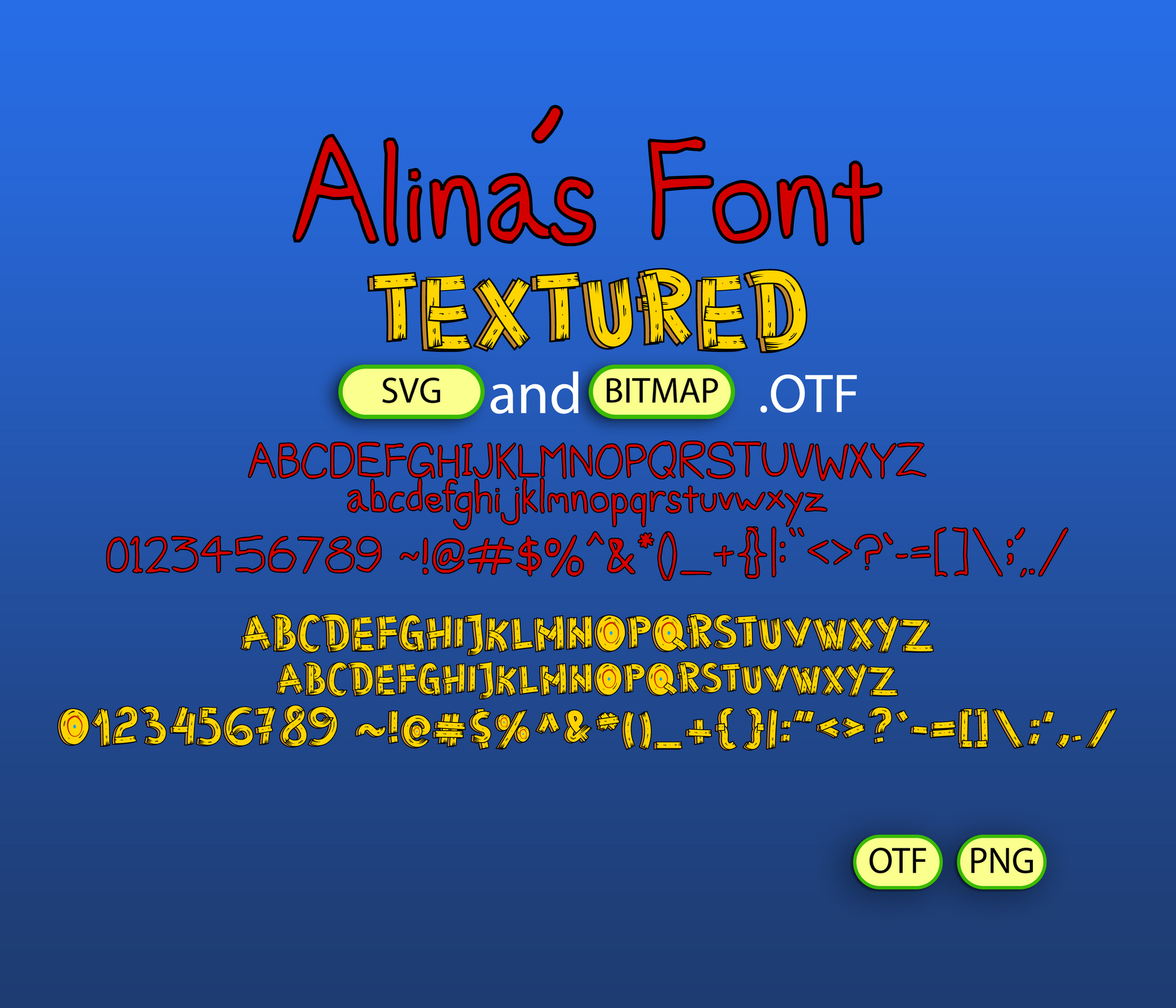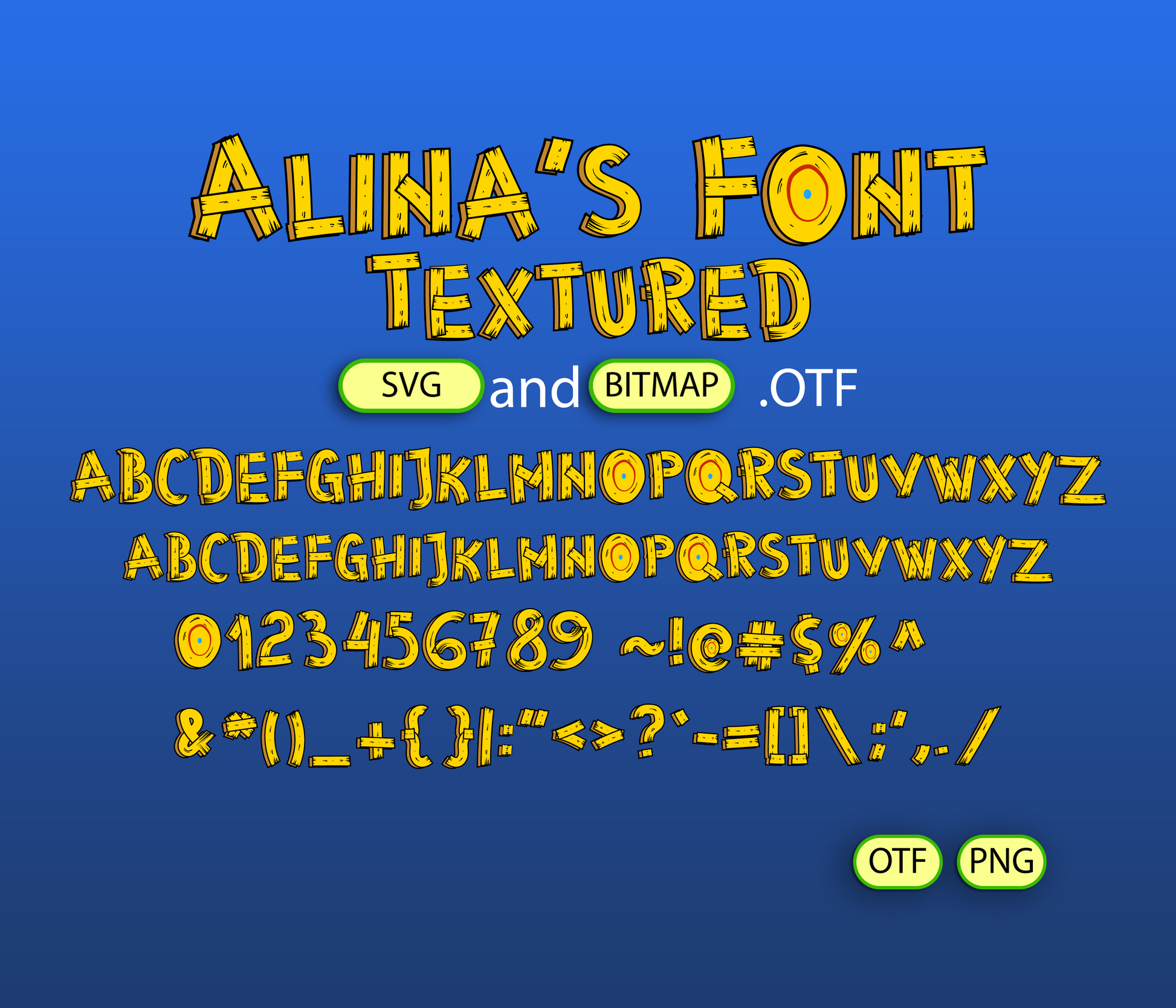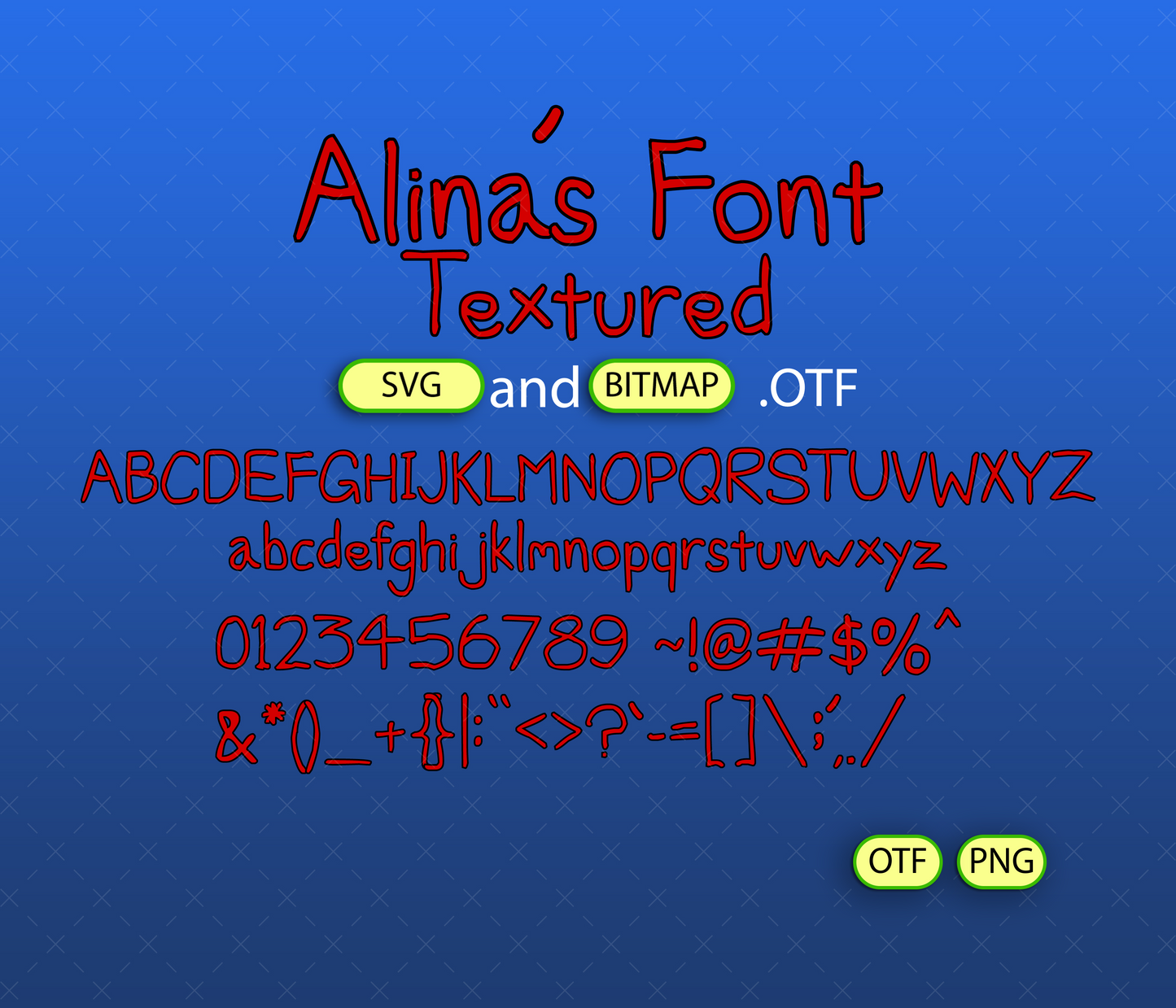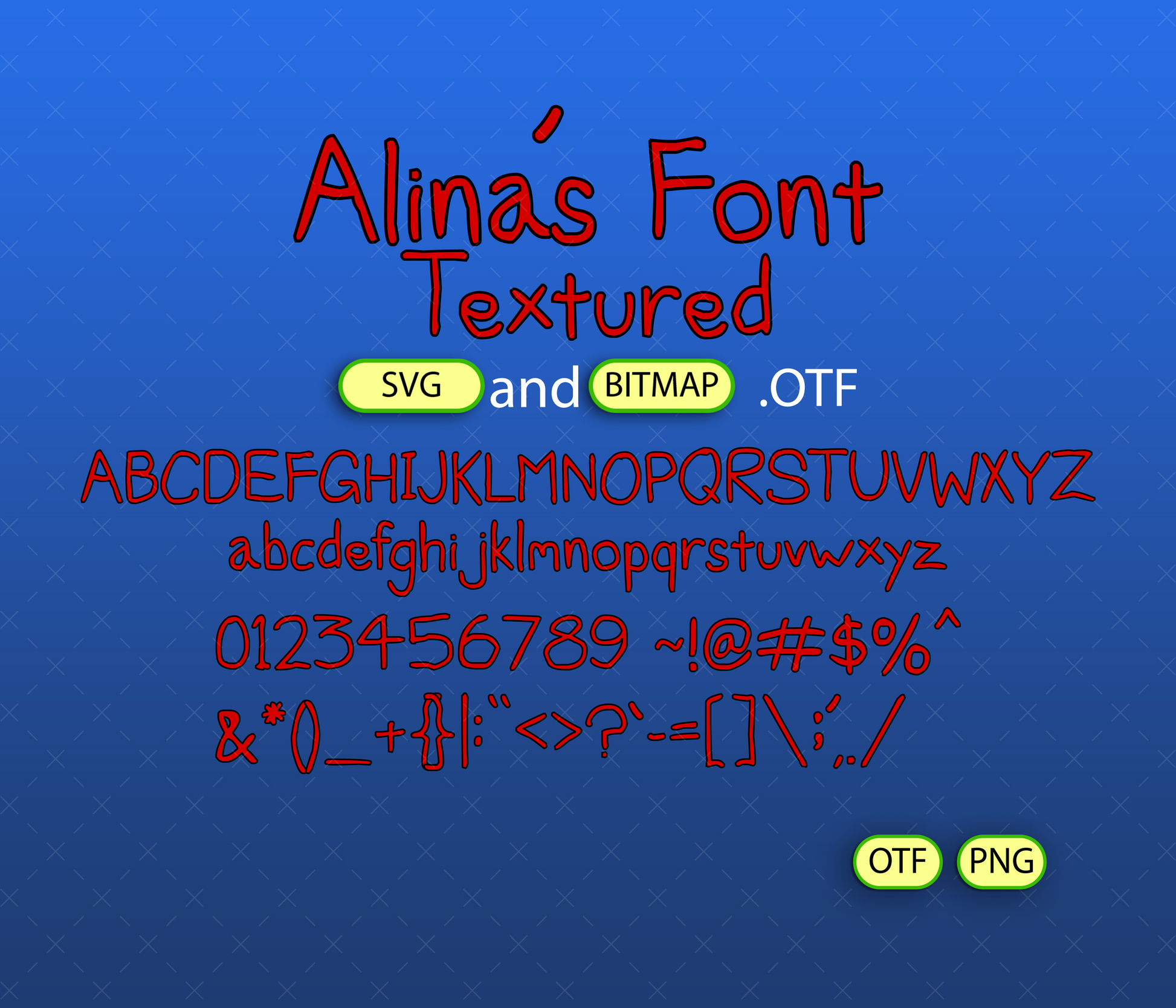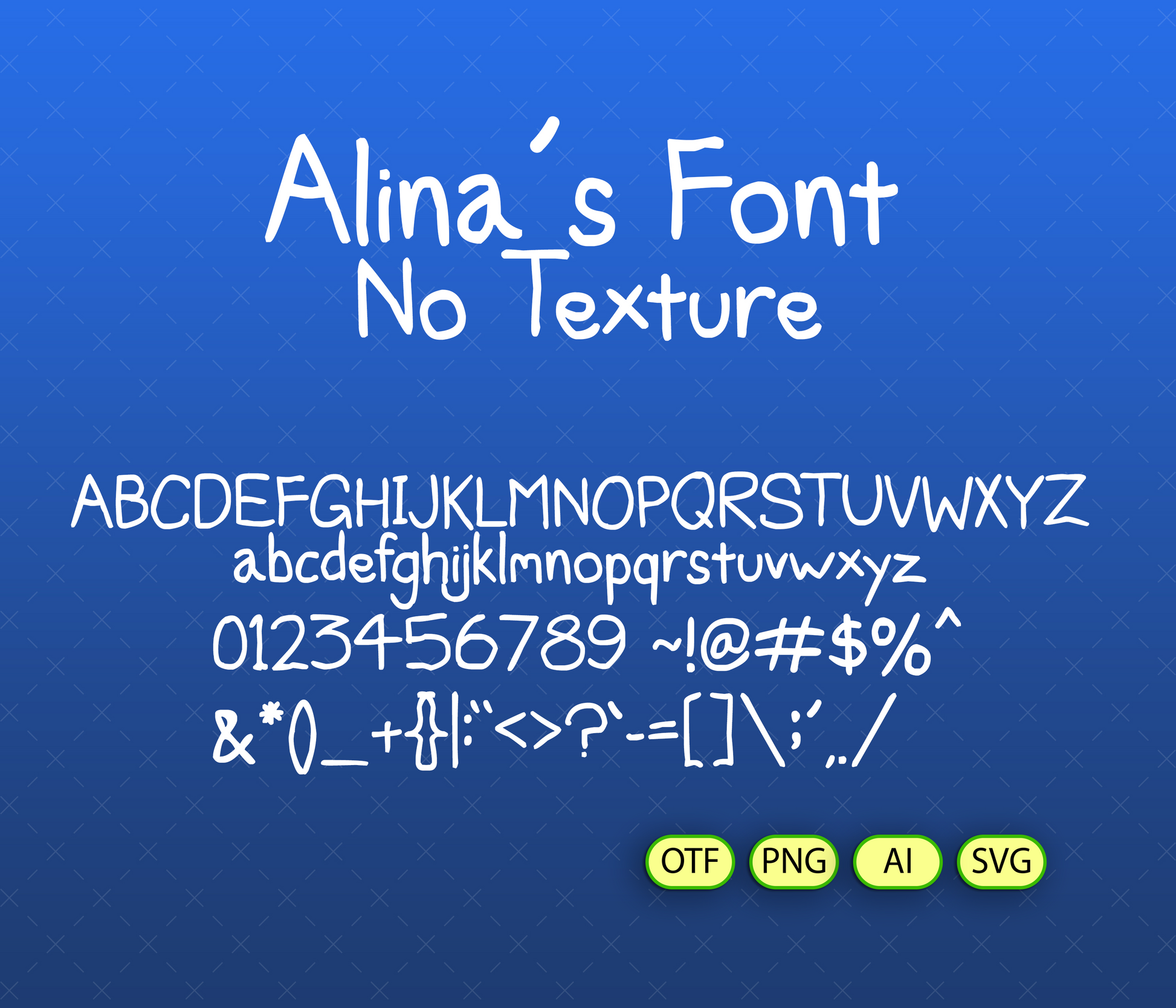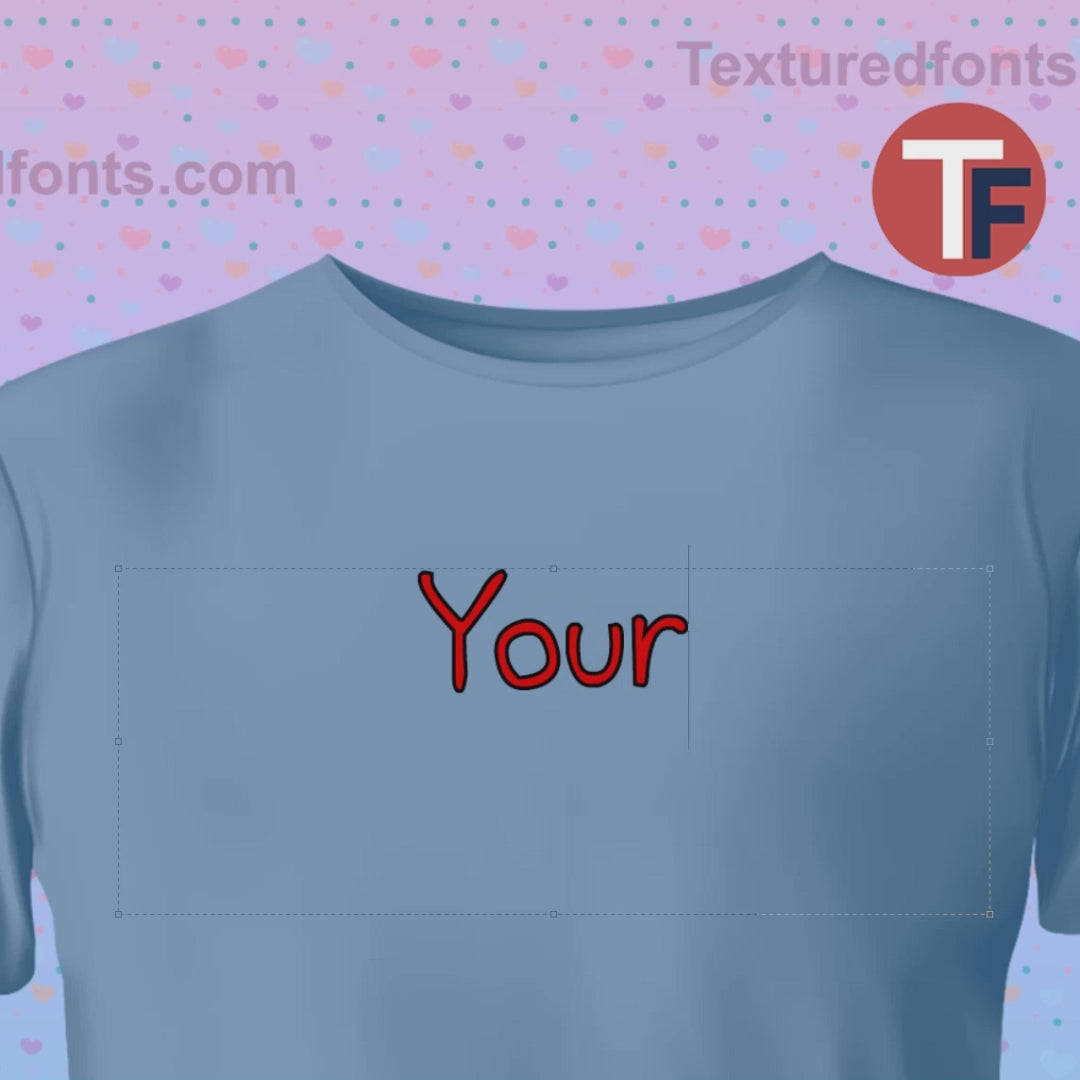
Childhood Fun with the Animated Trio Font Textured Bundle
Revisit Childhood Fun with the Animated Trio Font
Step into the world of mischief and adventure with our Animated Trio-inspired font, a digital typeface capturing the spirit of a beloved cartoon series. This textured font brings to life the playful camaraderie of the three friends, perfect for adding a nostalgic touch to your projects. Whether you're designing engaging graphics, whimsical merchandise, or lively digital content, this font brings a slice of the animated fun that defined childhood for many. With easy compatibility with Cricut machines, transitioning your whimsical digital designs into tangible creations is a breeze.
Our Animated Trio-inspired font features textured, playful letters that reflect the energetic and humorous style of the series. This versatile font is ideal for a variety of applications:
- Event Promotions: Create engaging invites, posters, and banners for themed parties or fan events.
- Merchandise Design: Design t-shirts, hoodies, and accessories that capture the essence of the animated trio.
- Digital Media: Enhance websites, blogs, and social media content with vibrant headers and graphics.
- Educational Materials: Use in presentations, worksheets, and educational content focused on animation or storytelling.
- Personal Projects: Add a nostalgic touch to scrapbooking, DIY crafts, or home decor inspired by the trio's adventures.
Our Animated Trio font not only celebrates the humor and playful spirit of the series but also empowers you to bring a piece of its iconic style into your creative endeavors. With its bold style and versatile application, this font enables you to communicate with the excitement and fun that define the animated trio. Ready to take your designs to the next level? Let this font add all the charm and nostalgia you need to create memorable projects.